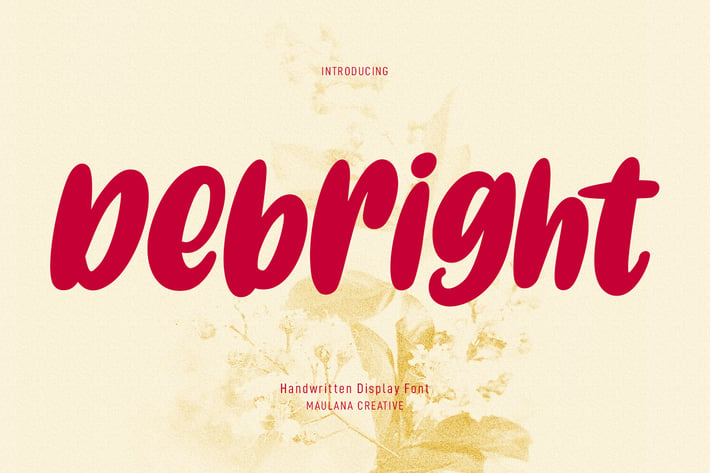
Debright Handwritten Font
Debright is a fat handwritten display font. With low bold contrast stroke, fun character. To give you an extra creative work. Debright font support multilingual more than 100+ language. This font is good for logo design, Social media, Movie Titles, Books Titles, a short text even a long text letter and good for your secondary text font with sans or serif. Make a stunning work with Debright font.